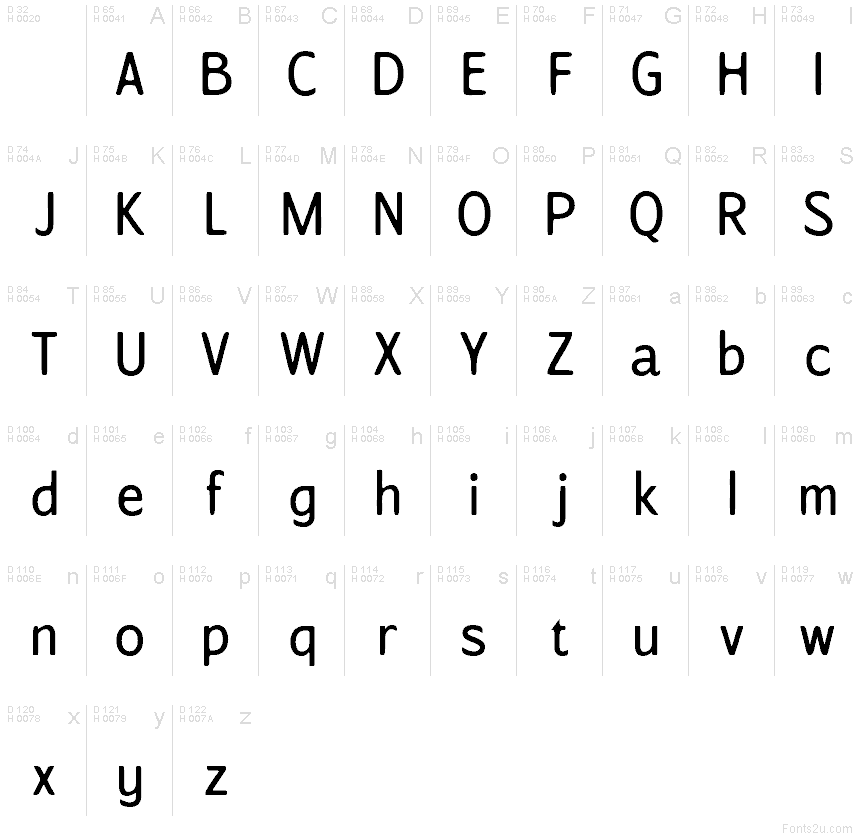
CSHarpingDrawn-Regular Demo
CS Harping Drawn font by Craft Supply Co. is a nostalgic and friendly sans serif font. With humanistic and approachable vibes, the typeface is warm and versatile in appearance. The concept focuses on letter simplicity with slight details for legibility as well as visual appeal.
Thanks to its versatile letter shapes, use the free font in designing logos, companies’ branding items, packaging stickers/labels, and signage (indoor/outdoor). Additional suitable projects include book covers/titles/impressions along with posters, advertisements including magazines/newspapers or other stationery items like business cards/envelopes or more.